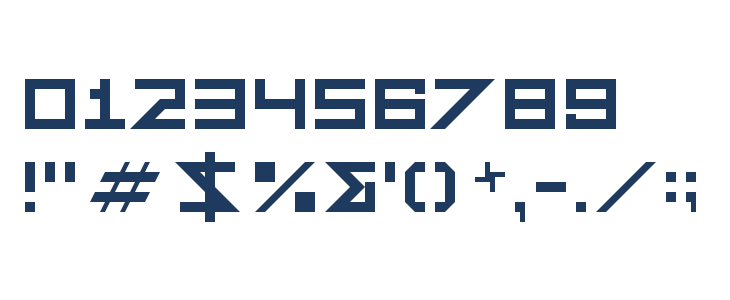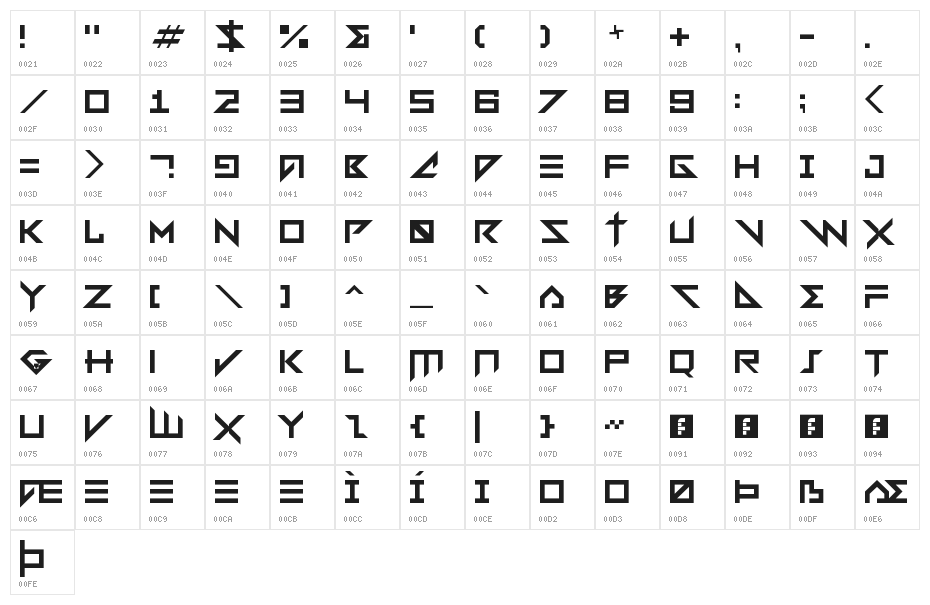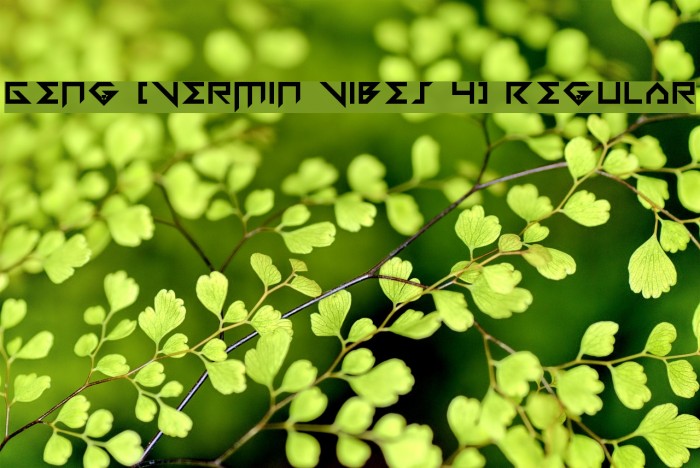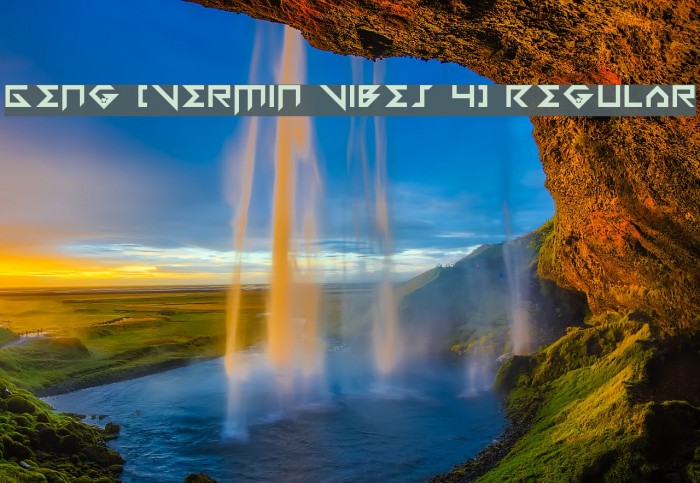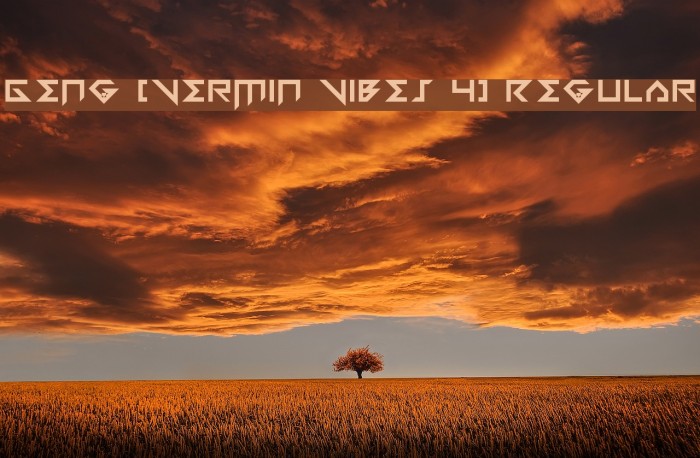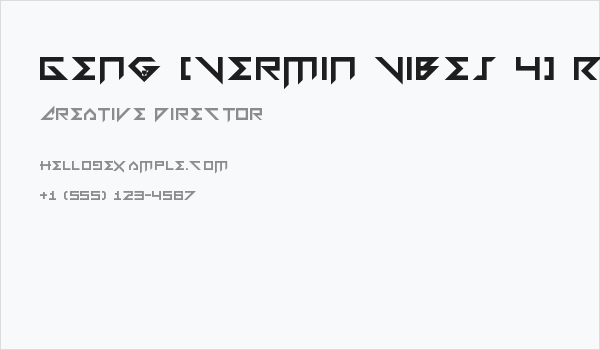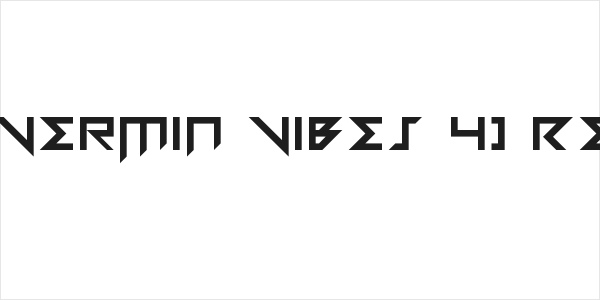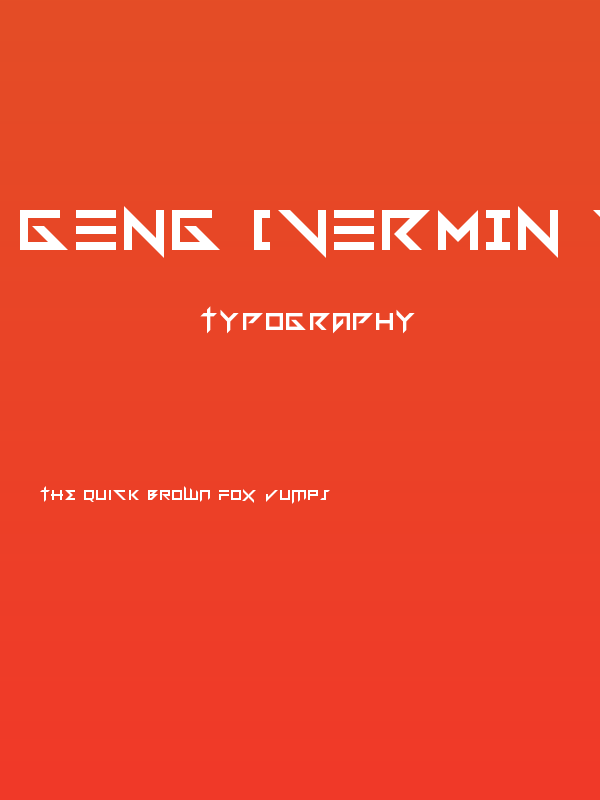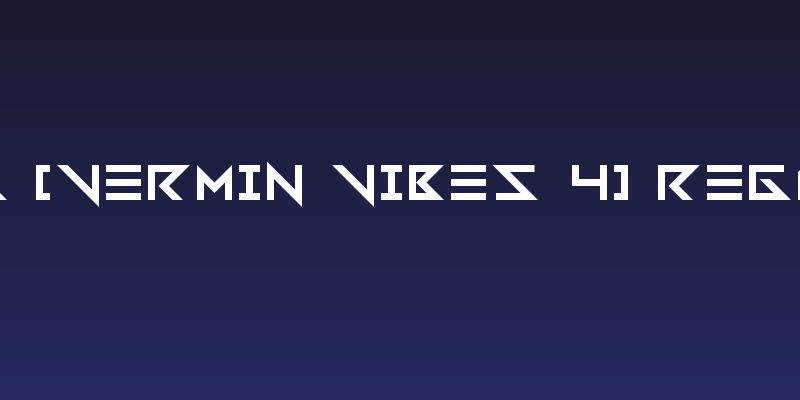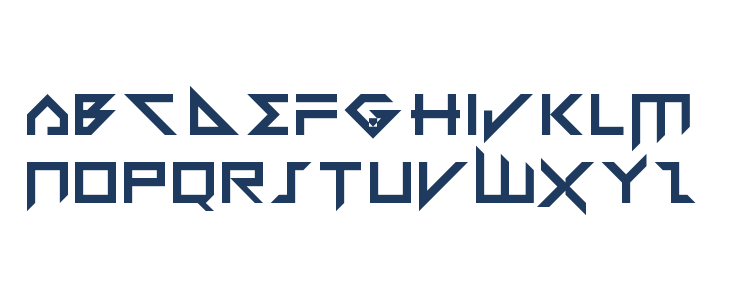
Geng [Vermin Vibes 4] Regular Font
Geng [Vermin Vibes 4] Regular Description
This font features a bold, geometric design with sharp angles and a futuristic aesthetic. The characters are constructed with straight lines and triangular shapes, giving them a distinct, edgy appearance. The uppercase and lowercase letters maintain a consistent style, with a focus on symmetry and uniformity. The numbers and special characters follow the same design principles, ensuring a cohesive look across all elements. This font's unique style makes it stand out, with a modern and slightly aggressive vibe that captures attention.
| Overall Style | Futuristic, Edgy |
| Proposed Projects | Ideal for sci-fi themed projects, video game titles, tech branding, and edgy poster designs. |